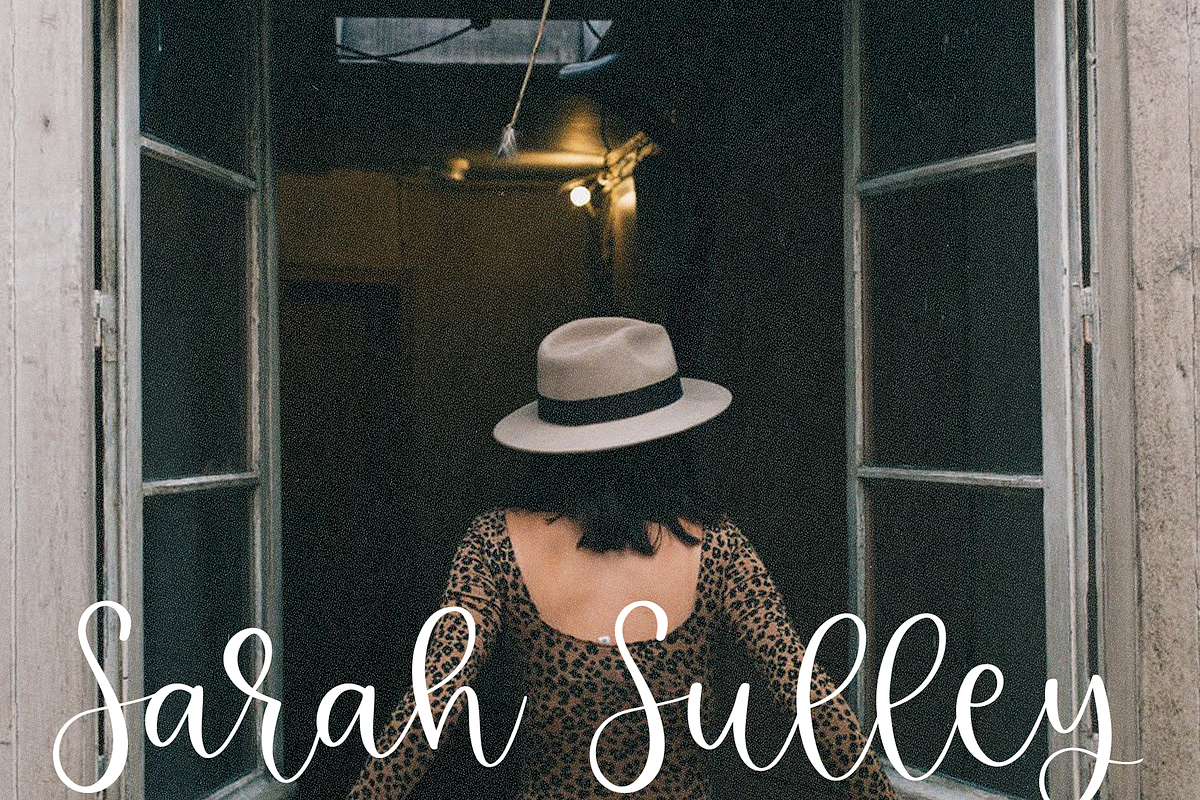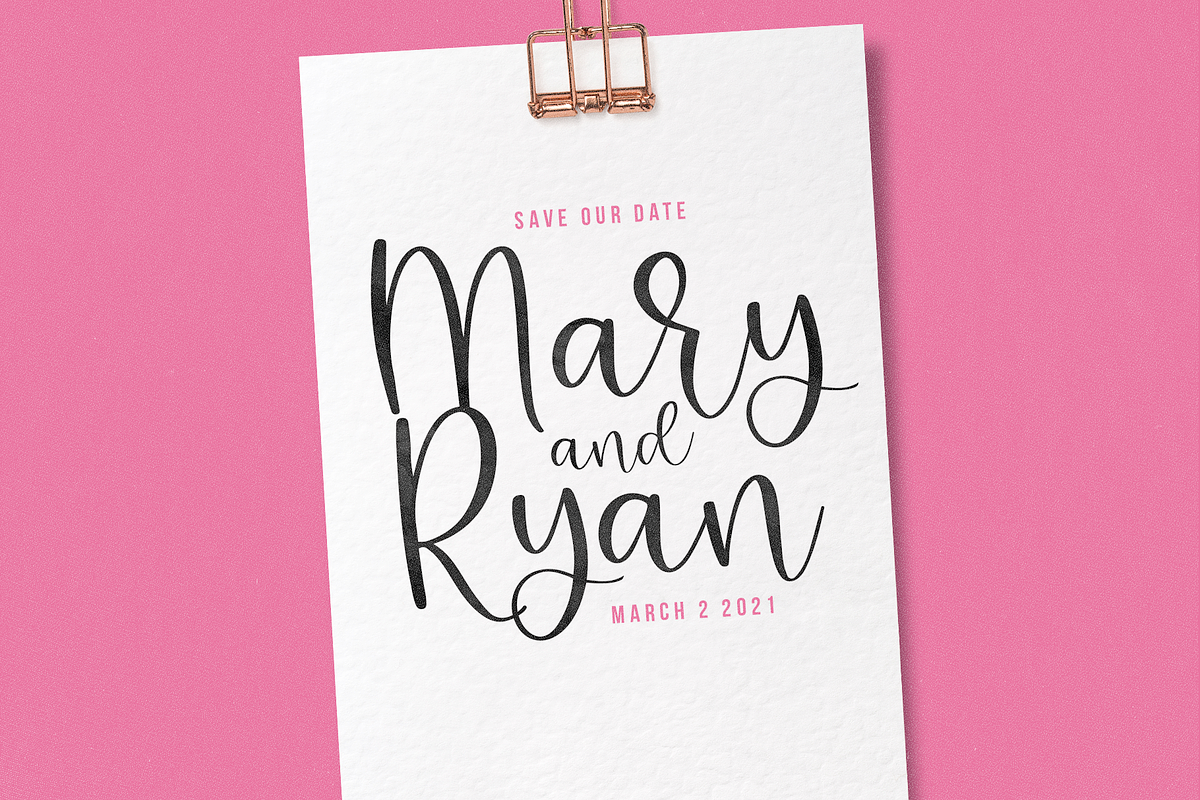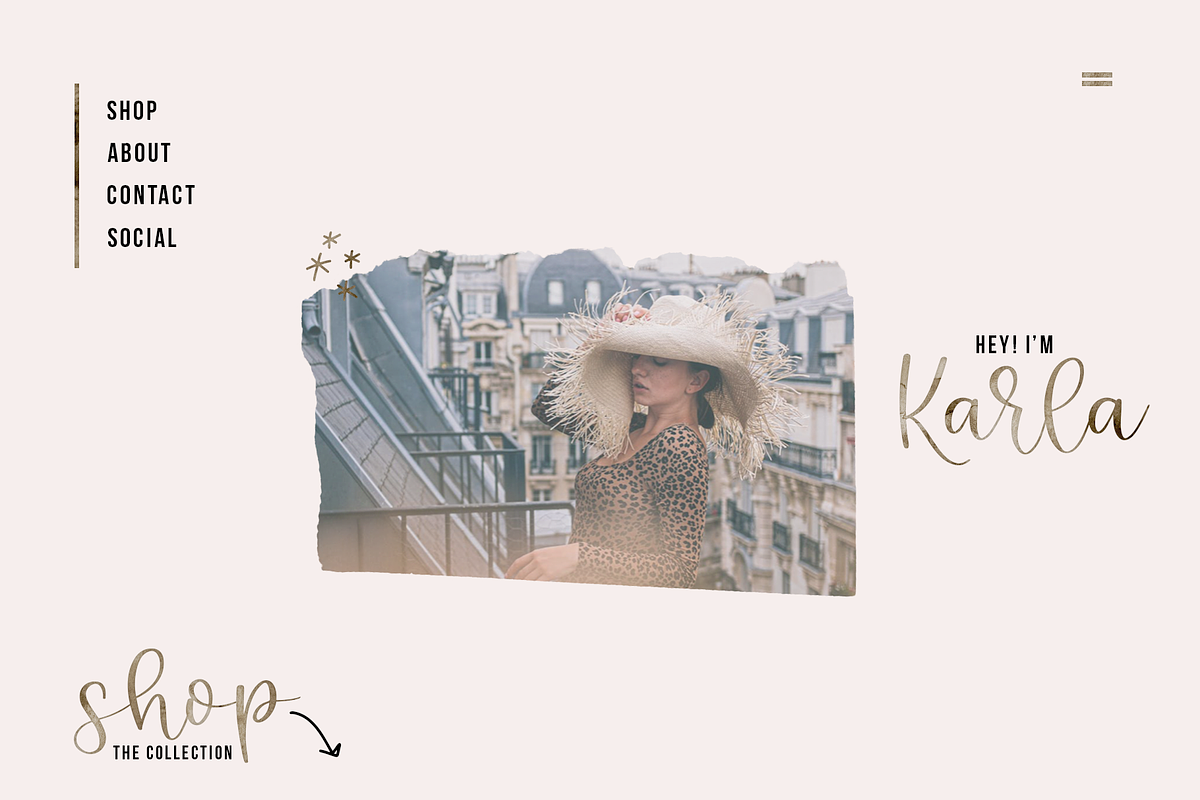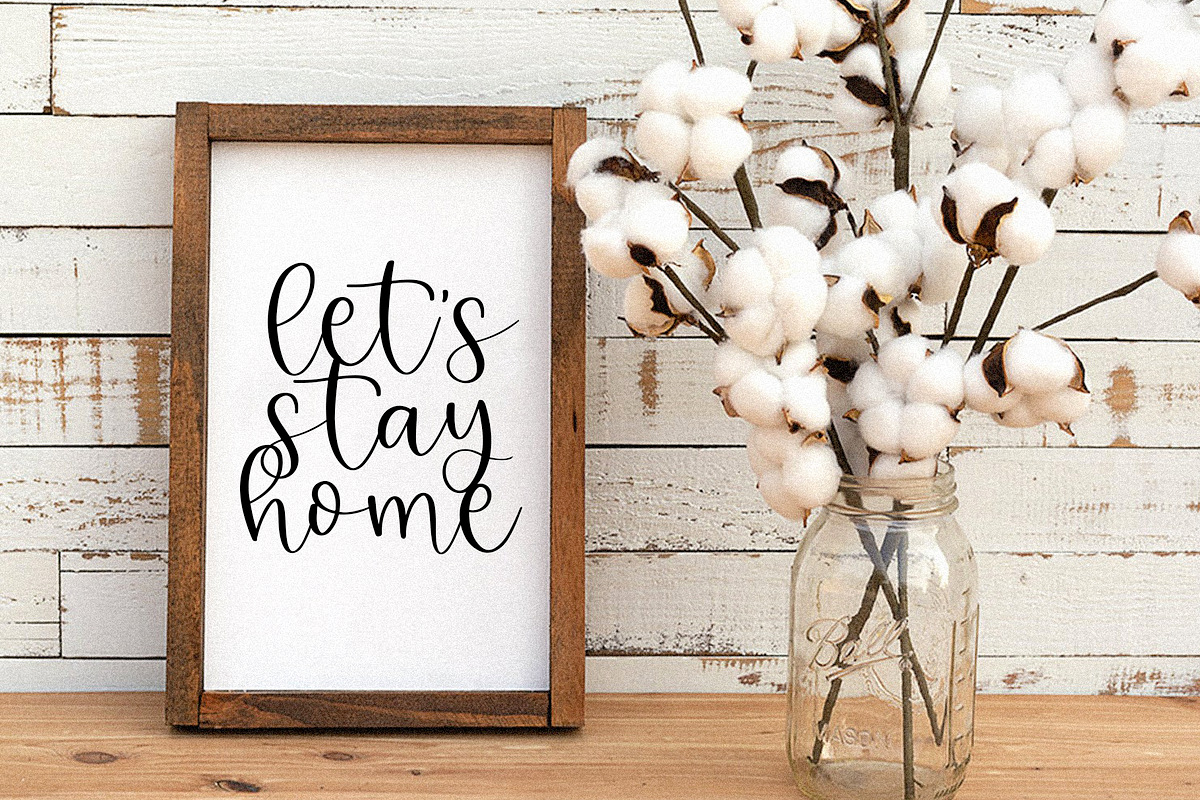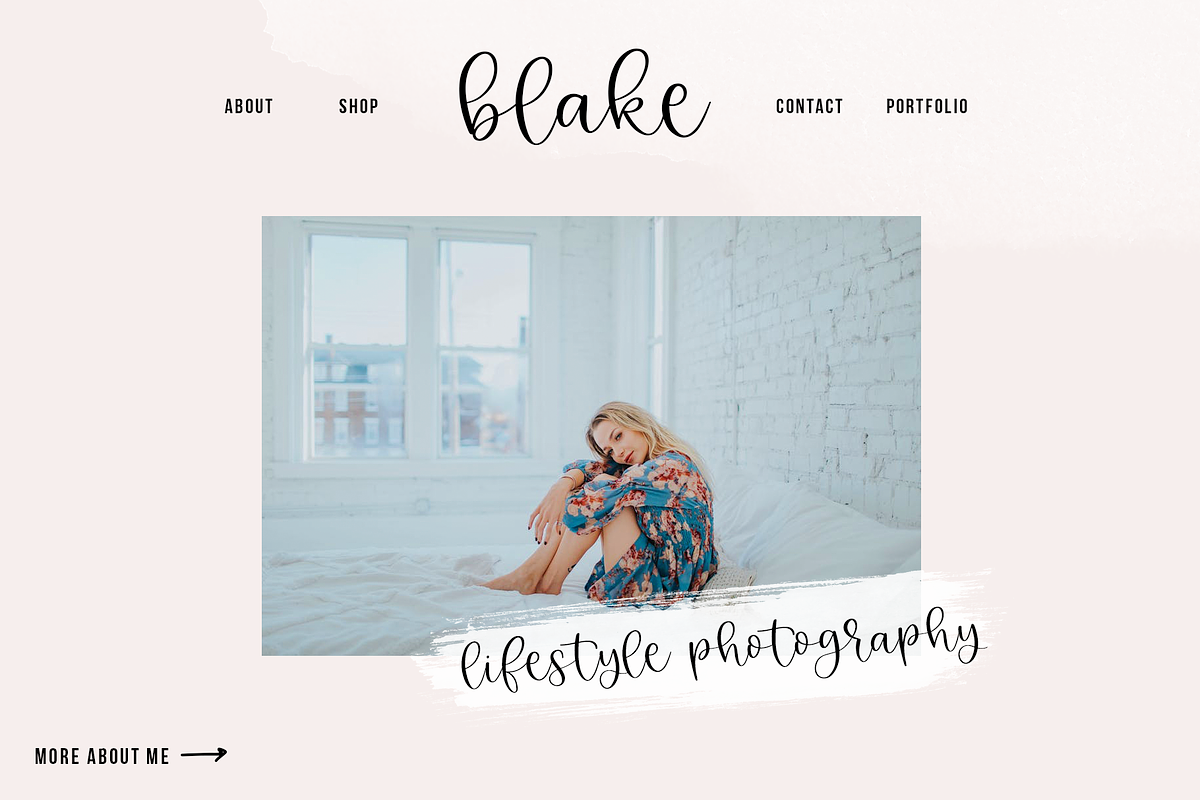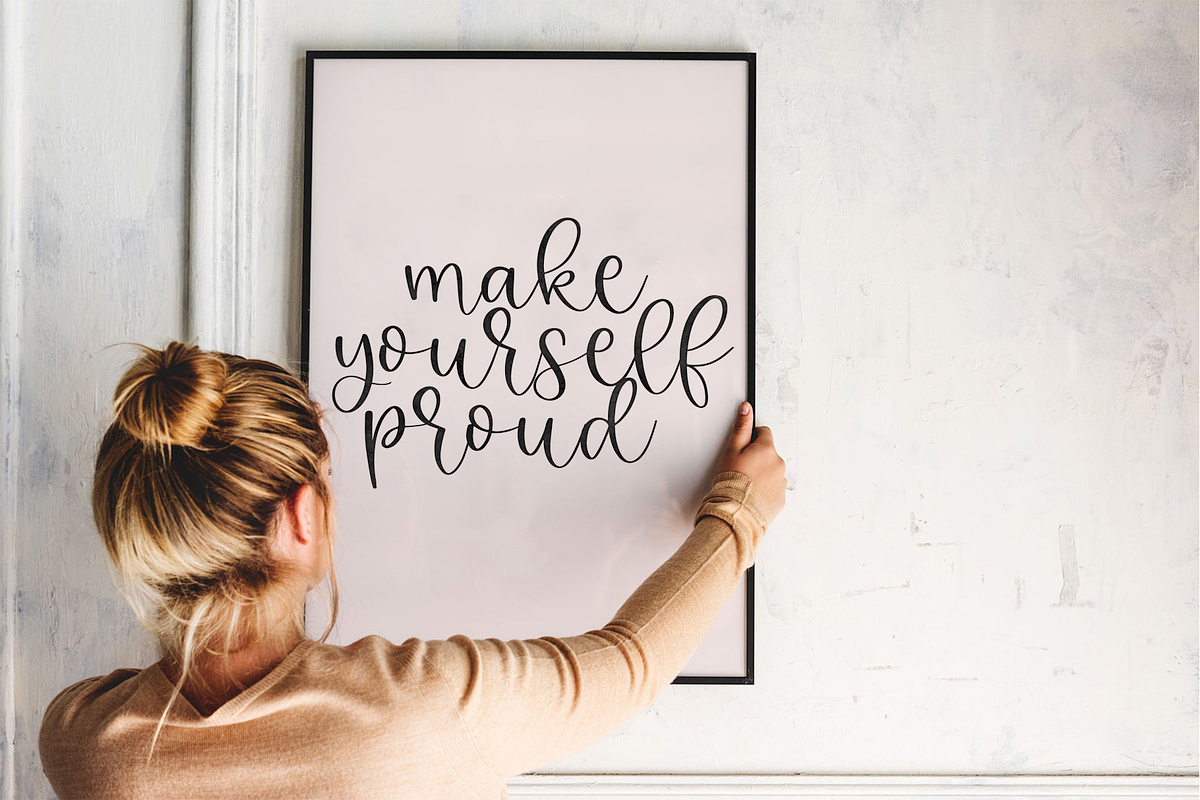
Kindheart | Handwritten Script Font
Kindheart is an elegant handwritten script font that has a modern feel!
This font is perfect for wedding invitations, branding, logos, svg designs, shirts, web, blogs, social media, instagram, signs, prints and more!
Most accent characters included.